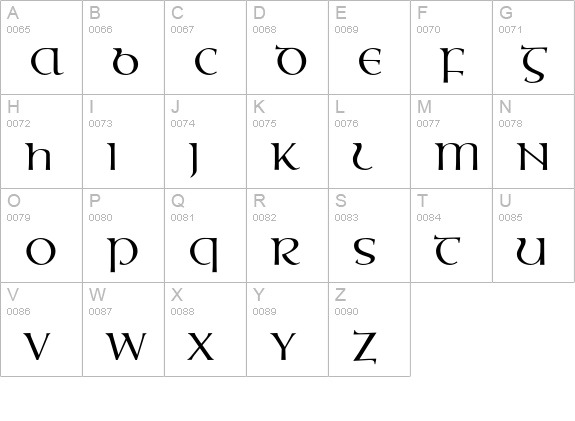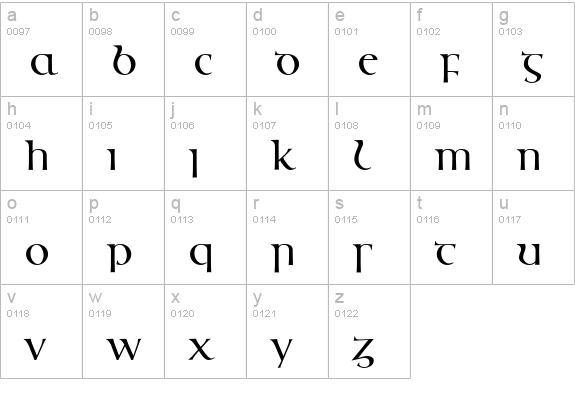
OssianGaelicEF-Regular Font Details
OssianGaelicEF-Regular is the standard, neutral variant in the OssianGaelicEF typeface family \xE2\x80\x94 well suited to general body text, paragraphs, and standard typographic work.
Ossian Gaelic EF Regular font is a stunning and elegant typeface that captures the essence of traditional Gaelic script while offering a modern and sophisticated touch. With its intricate details and graceful curves, this font is perfect for adding a touch of Celtic charm to your designs. What makes Ossian Gaelic EF Regular font even more special is that it is available for free download at FontsMarket.com. Whether you are creating invitations, posters, or branding materials, this font will bring a unique and timeless appeal to your projects. Embrace the beauty of Gaelic heritage with Ossian Gaelic EF Regular font and elevate your designs to a new level of sophistication.